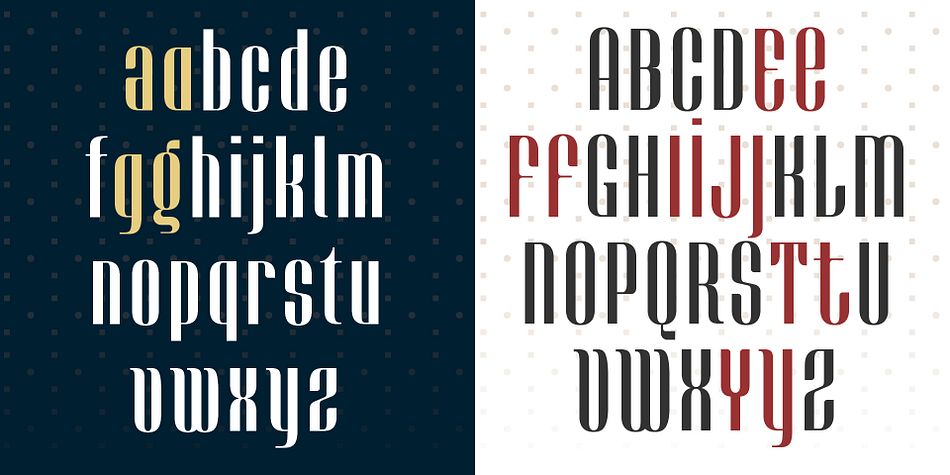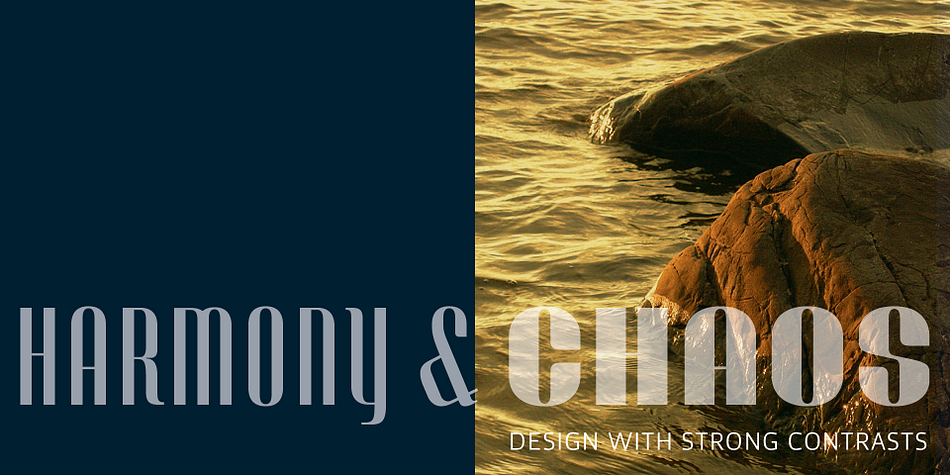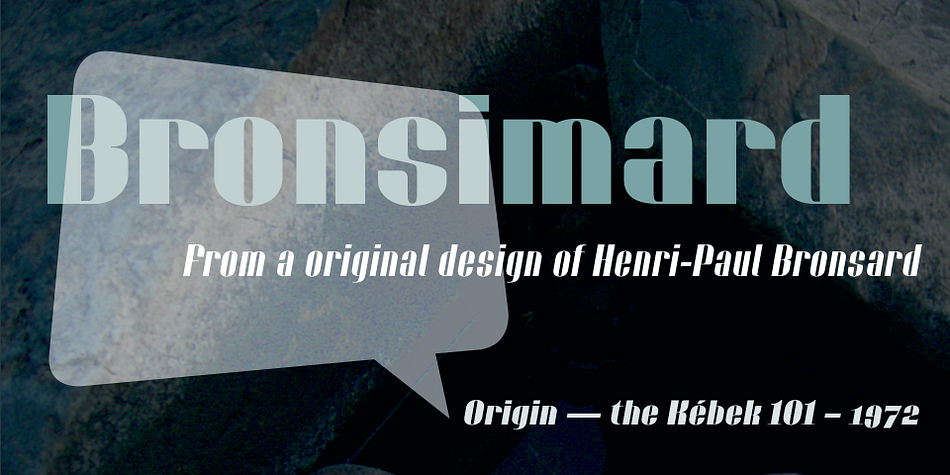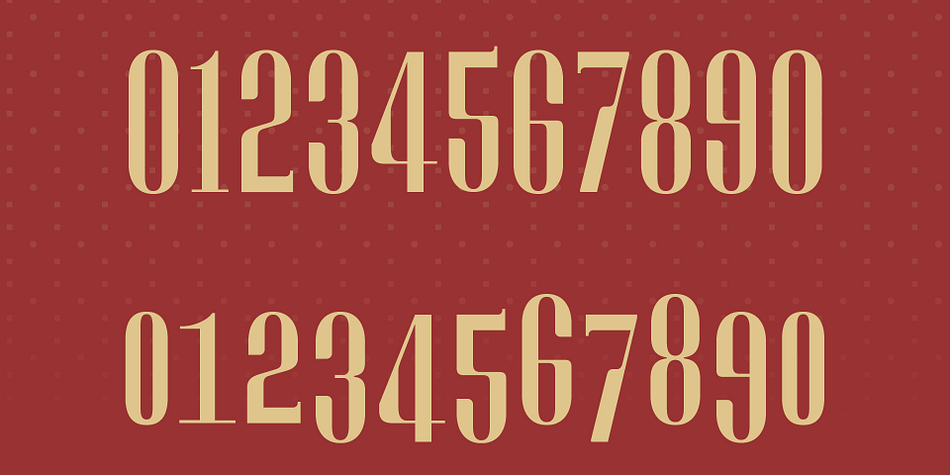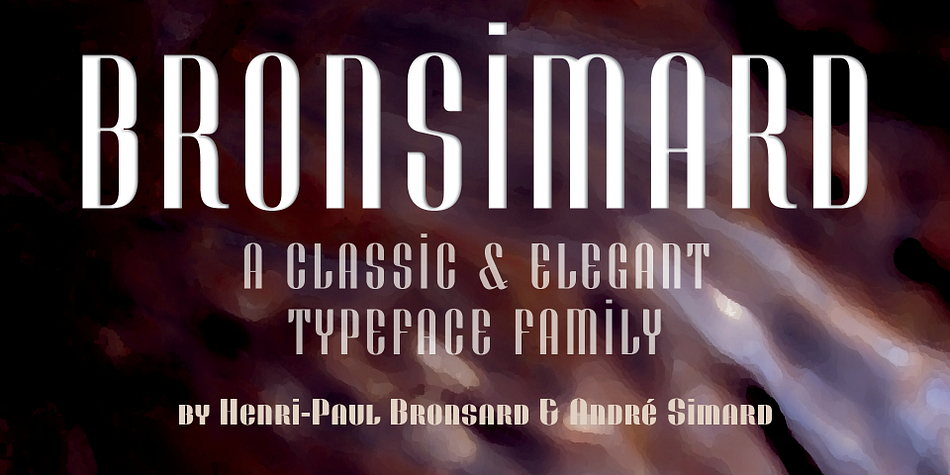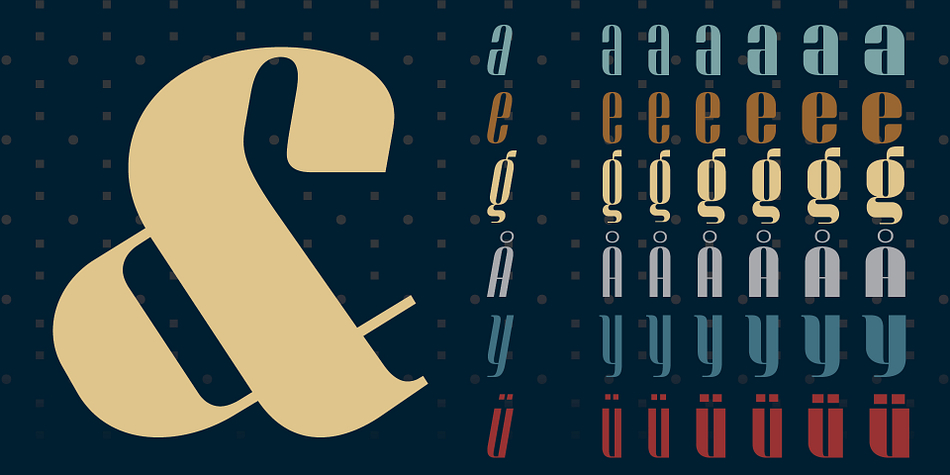
Designed by André Simard and Henri-Paul Bronsard, Bronsimard is a display sans font family. This typeface has twelve styles and was published by André Simard.
André Simard signs Bronsimard, a font inspired by Henri-Paul Bronsard’s Kébek 101, designed in 1972 and used to create the logo and headlines of the daily newspaper Le Jour, founded in 1978. After all these years, Henri-Paul contacted his former student to propose a creative venture focused on drawing a variant of Kébek 101 from ideas contained in his research efforts.
The result is Bronsimard, a vertically elongated font with very sharp contrasts, somewhat reminiscent of Bodoni and Didot.
Bronsimard is a font family available in twelve font weights, in both normal and italic face. Its harmonious yet highly contrasted design will satisfy your creative needs.